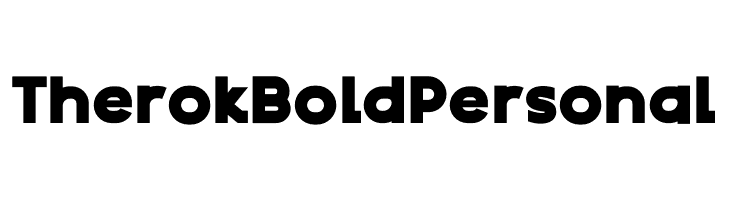
A modern, geometric sans-serif font with clean lines and balanced proportions.
A bold, expressive script font with flowing, cursive letters.
A playful, bold font with a hand-drawn, beachy vibe.
An ornate, decorative font with intricate floral patterns and a vintage flair.
A geometric font made from hexagonal shapes, offering a modern and digital aesthetic.
A playful, bold script font with interconnected, rounded letters.
A bold, angular, and italicized font with a rugged, rune-like appearance.
A modern, bold sans-serif font with clean lines and strong visual impact.
Elegant, handwritten script with flowing, connected strokes.
设计师偏爱 TitilliumMaps29L-800wt, LegilatureFree, Beach-Party, Kahir Demo and Hexamatter,因为其造型干净、适用范围广—— 从品牌识别到落地页、海报都能胜任。